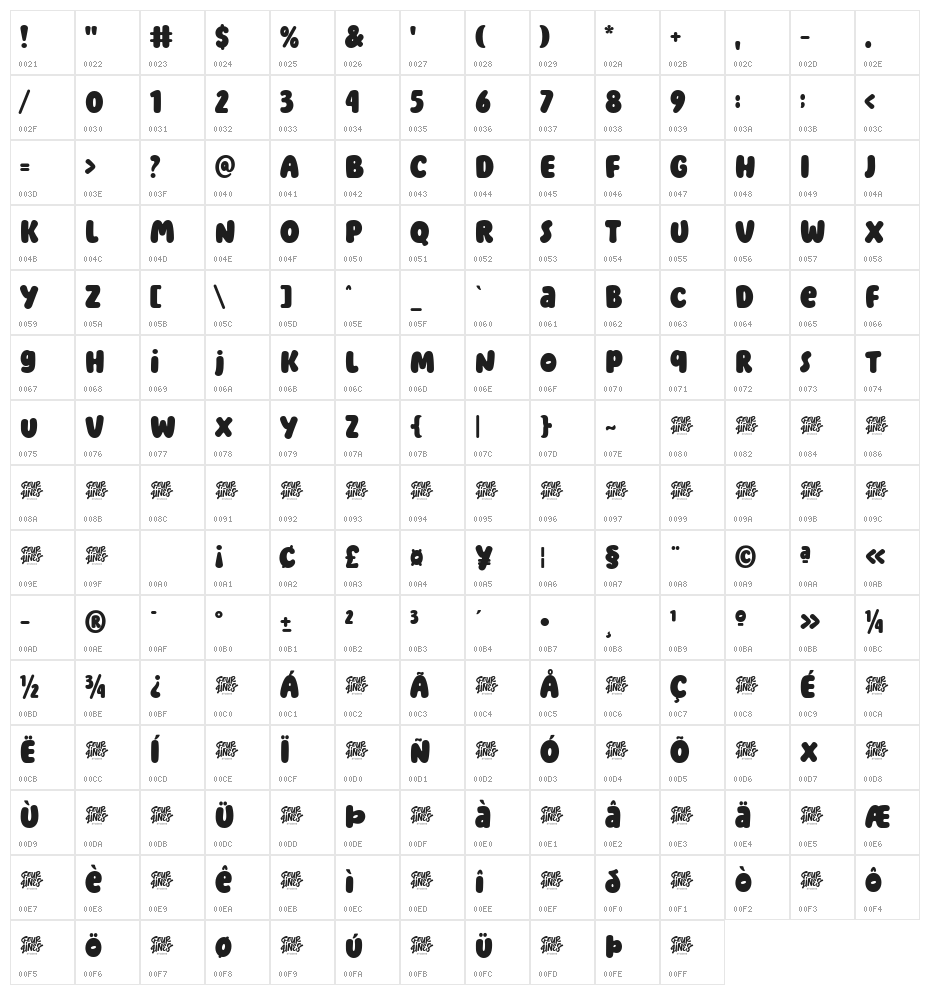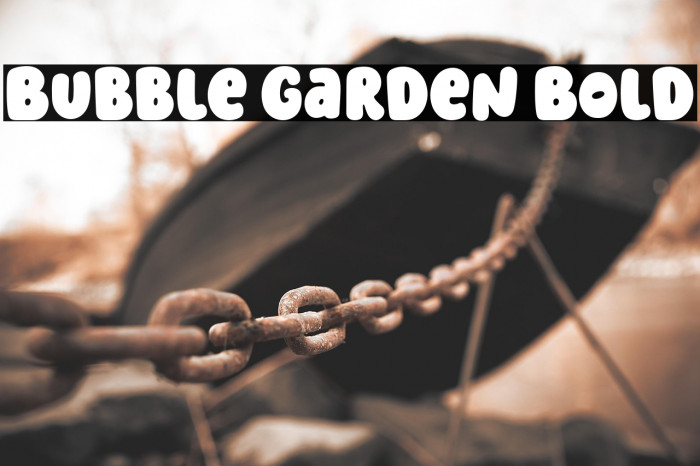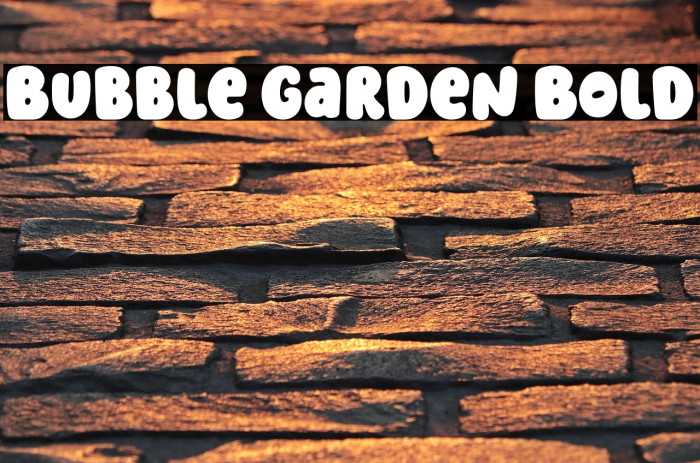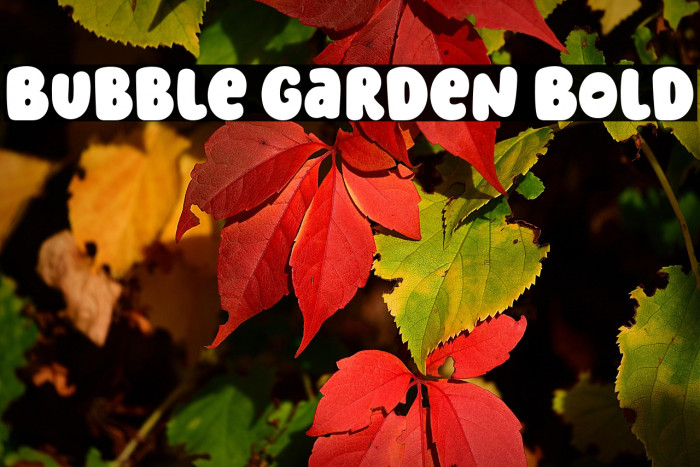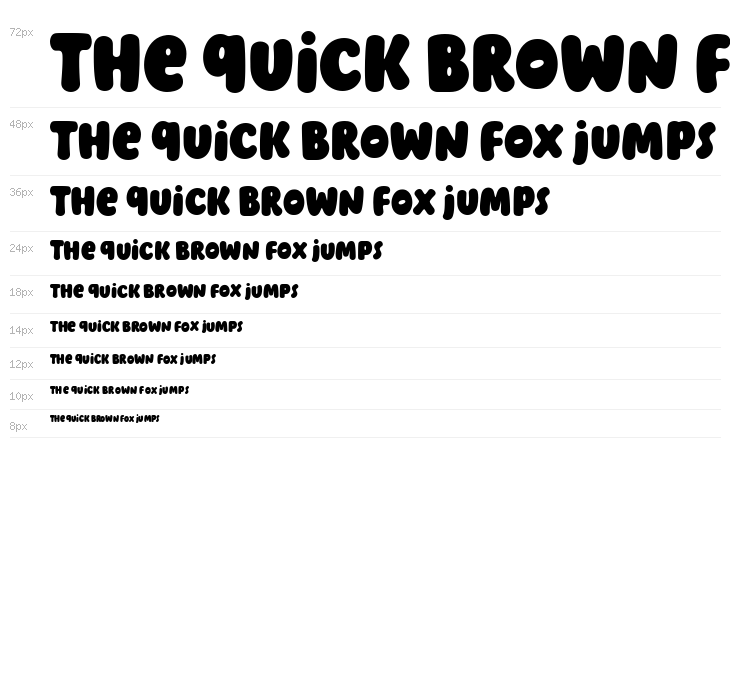
Bubble Garden Bold Font
Bubble Garden Bold Description
This playful and bold font features rounded, bubble-like characters that exude a sense of fun and whimsy. The letters are thick and uniform in weight, creating a strong visual impact. The rounded edges and smooth curves give it a friendly and approachable appearance, making it ideal for designs that aim to be inviting and cheerful. The font maintains consistent proportions across uppercase, lowercase, and numerical characters, ensuring readability while retaining its unique style. Special characters are also included, matching the overall bubbly aesthetic.
| Overall Style | Playful, Fun, Whimsical |
| Proposed Projects | Perfect for children's books, playful branding, party invitations, and any project that requires a fun and lively typeface. |